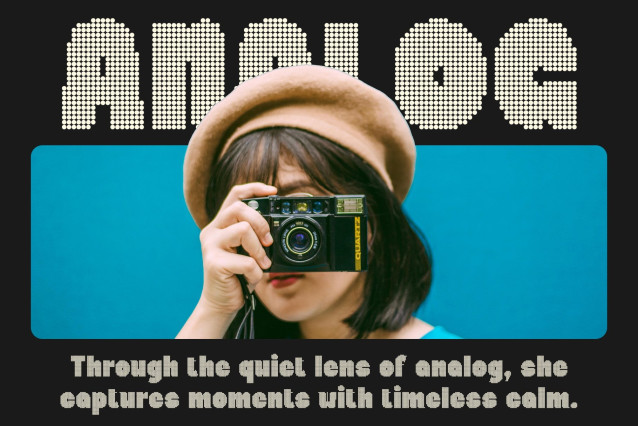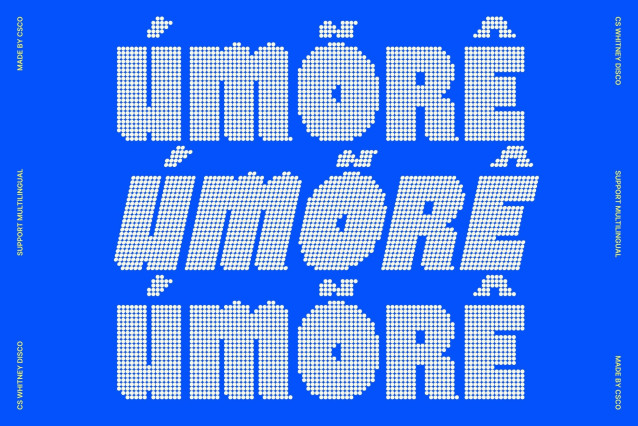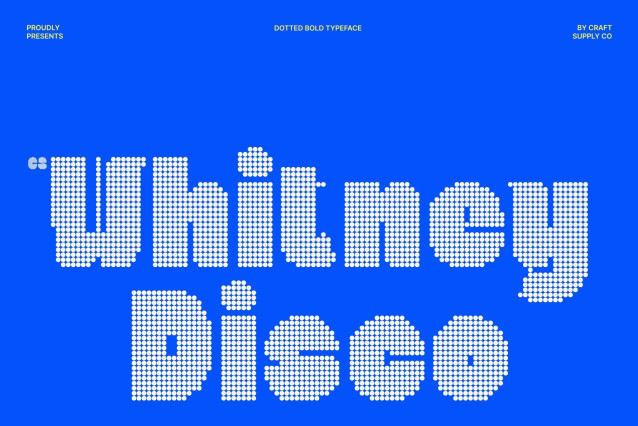
CS Whitney Disco Font
CS Whitney Disco – Bold Impact Meets Sparkling Playfulness
Chunky Display Sans Serif with Disco Dot Style
This bold, chunky display font now shines with a lively disco dot texture, bringing extra sparkle and personality to its strong letterforms. The thick, blocky shapes communicate confidence and modern style, while the dotted finish adds a playful, celebratory energy that makes every word feel fun and eye-catching.
Thick Strokes for Maximum Presence
Built with heavy strokes and clean structure, this font commands attention in headlines, posters, and packaging. The disco-inspired dotted texture enhances visibility and adds a festive glow, ensuring designs stand out across both print and digital media.
Playful Details for Creative Expression
Quirky character details paired with shimmering dots create a unique voice full of joy and creativity. The result is typography that feels bold yet cheerful perfect for branding, social media graphics, party visuals, and promotional campaigns that want to radiate excitement.